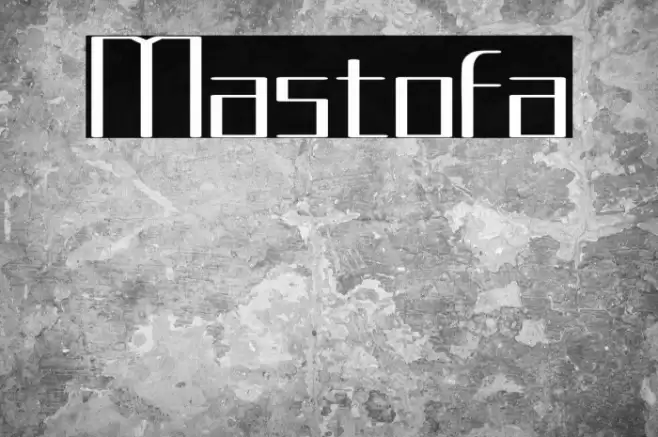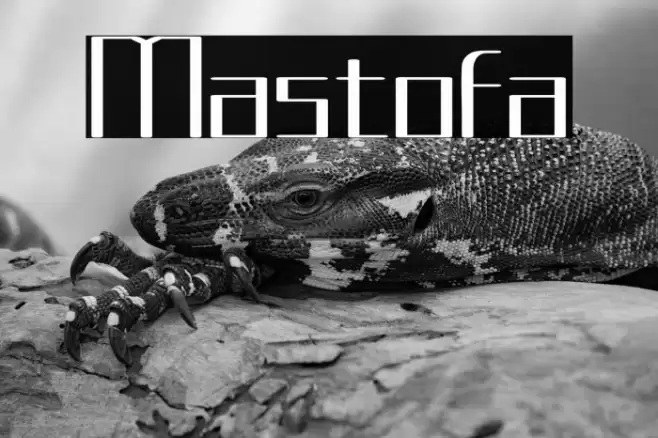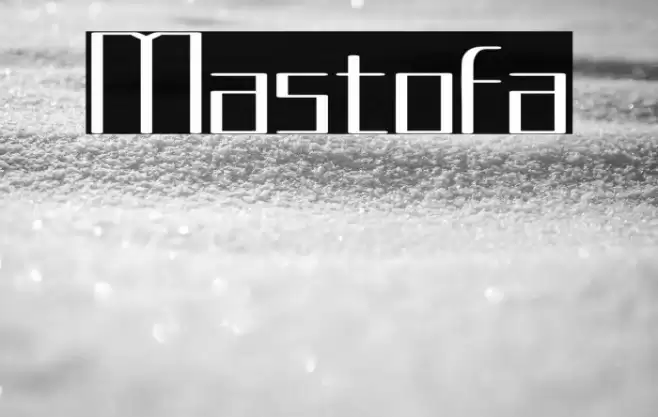
Mastofa Font
Mastofa Description
This font features a modern and geometric design with a distinctively angular and minimalist aesthetic. The characters are constructed with clean, straight lines and sharp angles, giving it a futuristic and technical feel. The uppercase letters are tall and narrow, while the lowercase letters maintain a consistent height, creating a harmonious balance. The numerals are uniquely styled, with a consistent height that aligns with the uppercase letters. Special characters are designed to complement the overall style, maintaining the geometric and angular theme. The font's structure is both innovative and versatile, making it suitable for a variety of design applications.
A modern, geometric font with angular and minimalist design from Regular fonts.
- Proposed Projects: Ideal for technology branding, modern posters, futuristic interfaces, and digital media.
- Overall Style: Futuristic and technical
- Use Case: Headlines, Logos, Digital interfaces